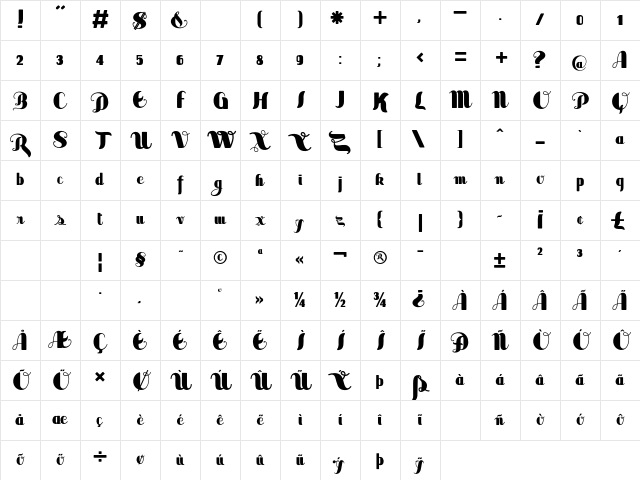
Sabor Limited Free Version Regular
Foundry: Iza and Paulo W, Intellecta Design
Design Context for Sabor Limited Free Version
Sabor Limited Free Version is a composed and adaptable typeface that performs quietly and consistently across a wide range of design contexts.
Who designed the Sabor Limited Free Version Regular font?